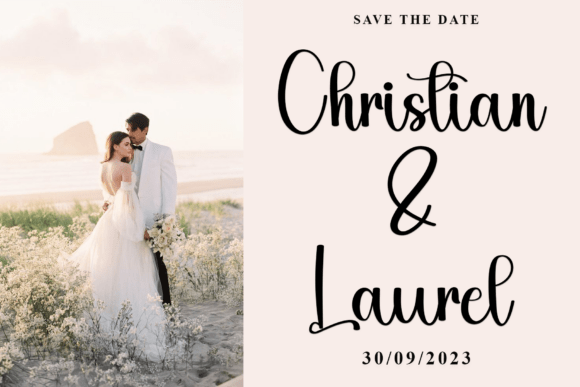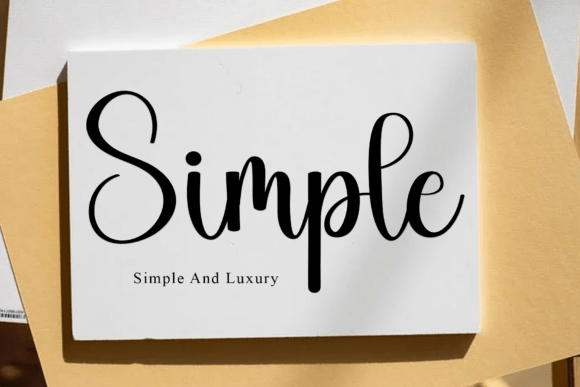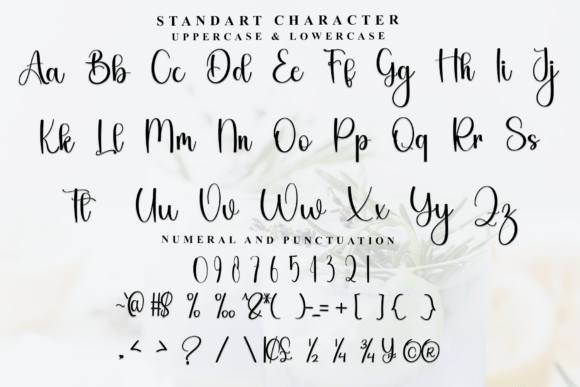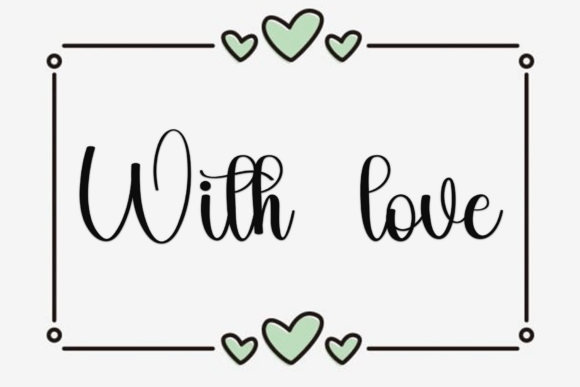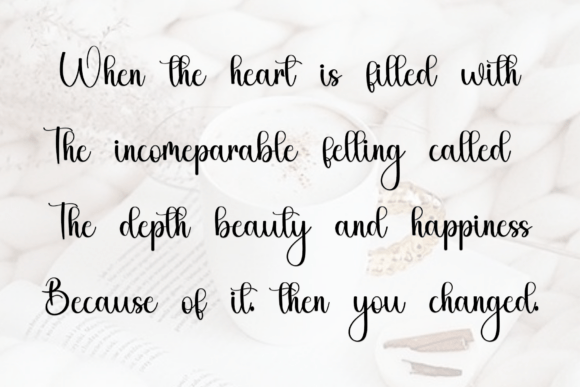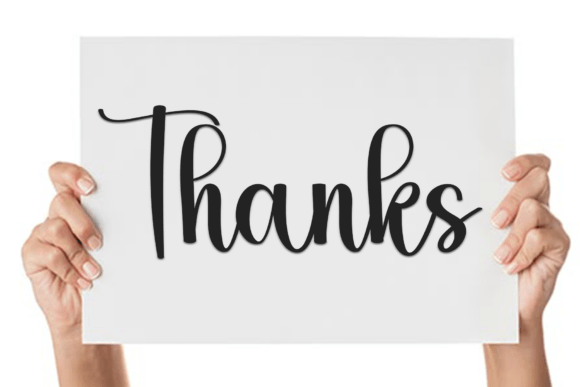
Baby Monday Font: Elevate Your Designs with a Soft, Unique Touch
In the world of typography, fonts play a crucial role in making or breaking a design. A well-chosen font can elevate your creative project, making it more engaging and visually appealing. If you’re a designer, crafter, or creative enthusiast looking for a font that stands out from the crowd, look no further than the Baby Monday Font. This beautiful, eye-catching font is designed with a soft, unique touch that will add a special character to your designs.
The Distinctive Features of Baby Monday Font
Baby Monday Font boasts distinctive strokes that give it a special character, making it both meaningful and versatile for future use. Its unique design ensures that your projects will have a personal touch, setting them apart from more generic designs. Whether you’re working on a logo, branding materials, crafts, or other creative projects, this font is sure to make a lasting impression.
Variety of Characters at Your Fingertips
One of the standout features of the Baby Monday Font is its extensive range of characters. This variety allows designers and crafters to experiment with different combinations, ensuring that their projects are always fresh and exciting. From uppercase and lowercase letters to numbers and special characters, Baby Monday Font provides everything you need to bring your creative vision to life.
Whether you’re a professional designer working on a client’s project or a crafter creating handmade goods, Baby Monday Font is the perfect choice. Its soft, unique touch lends itself beautifully to a wide range of applications, including:
• Logo design and branding
• Stationery and greeting cards
• Fabric design and textile projects
• DIY crafts and handmade goods
• Digital art and illustrations
Enhance Your Designs with Baby Monday Font
The Baby Monday Font is more than just a typeface – it’s a design element that can elevate your projects and make them more appealing to a wide audience. Its natural, soft look makes it perfect for designs that require a personal touch, such as:
• Children’s products and educational materials
• Wedding stationery and event branding
• Packaging design and product labels
• Web design and digital marketing materials
Why Choose Baby Monday Font?
With so many fonts available, why choose Baby Monday Font? Here are just a few reasons:
• Unique design: Baby Monday Font has a distinctive look that will set your designs apart.
• Versatility: It can be used for a wide range of projects, from design and crafts to digital art and illustrations.
If you’re looking for a font that will add a soft, unique touch to your designs, look no further than Baby Monday Font. Its distinctive strokes, extensive character range, and versatility make it the perfect choice for designers, crafters, and creative enthusiasts. With its compatibility with various applications and platforms, you can easily integrate Baby Monday Font into your workflow and elevate your designs to the next level.